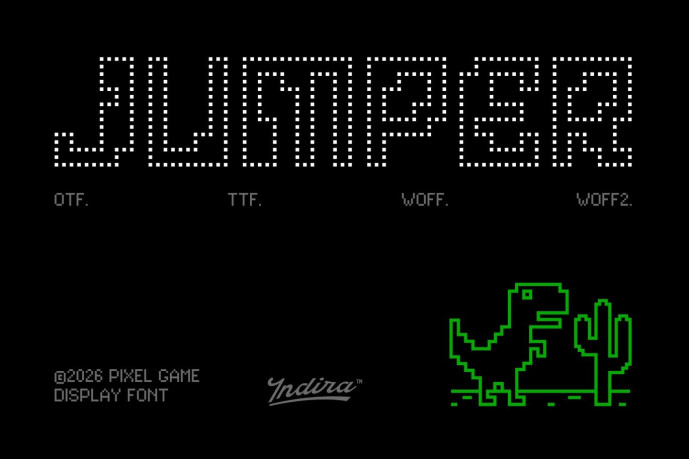
Jumper Pixel Font
Jumper Pixel Font is a pixel-based font designed with a crisp retro feel and a clean digital edge, bringing back the essence of classic arcades and cutting-edge displays. Built in a structured bitmap style, this display font uses a dotted pixel construction to create a distinctive, futuristic look. Inspired by Y2K graphics and old-school gaming interfaces, Jumper offers a bold yet minimalist aesthetic that perfectly meets modern creative needs.
Ideal for game titles, game graphics, tech branding, and coding-inspired visuals, Jumper offers a versatile solution for eye-catching display design. Its precise pixel rhythm makes it perfect for user interface layouts, posters, and digital environments that require a robust and legible font. Whether you’re creating an arcade-inspired concept or a sleek tech project, Jumper delivers a unique and appealing pixel-based font style.